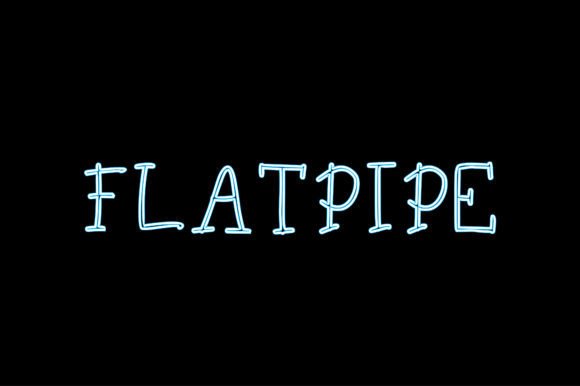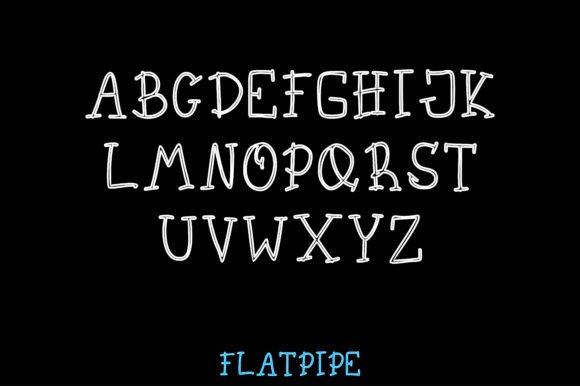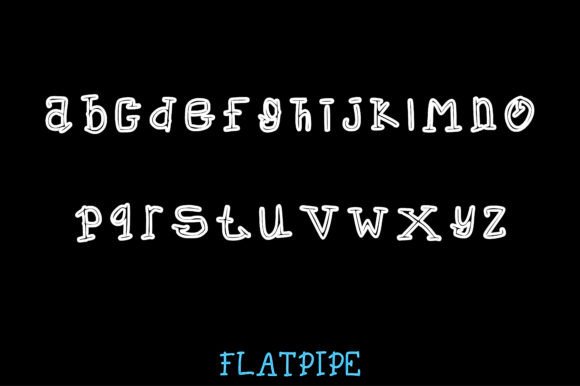
Flat Pipe Font
About Flat Pipe Font
Introducing Flat Pipe, a fresh and quirky handwritten font that adds a distinctive touch to your designs. This typeface is not just versatile; it’s exceptionally adaptable, making it perfect for a wide range of creative applications such as logos, quotes, advertisements, prints, magazines, and beyond.
The uniqueness of Flat Pipe lies in its handwritten style, which injects personality and character into your text. Whether you’re crafting a memorable logo, conveying impactful quotes, or designing eye-catching advertisements, this font effortlessly adapts, bringing a fresh and quirky energy to your projects.
Visualize Flat Pipe enhancing your designs, making them stand out with a playful and unconventional charm. It’s the perfect choice when you want to infuse a sense of quirkiness into your creative endeavors. Whether you’re working on digital media or print materials, Flat Pipe is ready to add a fresh and engaging element to your typography.
In summary, Flat Pipe is more than just a font; it’s a creative asset that brings freshness and quirkiness to your designs. Embrace its handwritten charm confidently, knowing that it can elevate your projects across various contexts. Let Flat Pipe be the choice that infuses your designs with a unique and versatile energy, making them memorable and impactful.